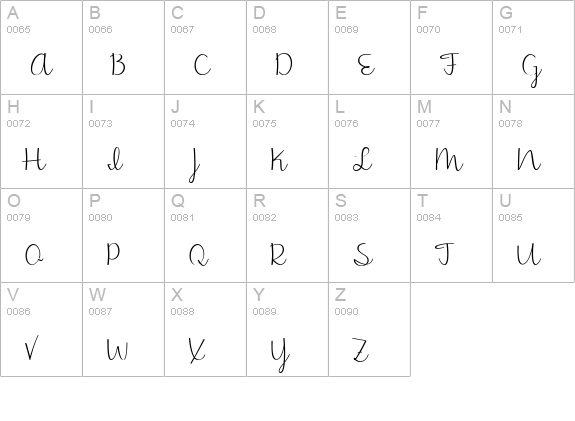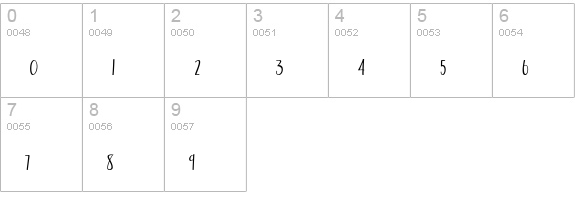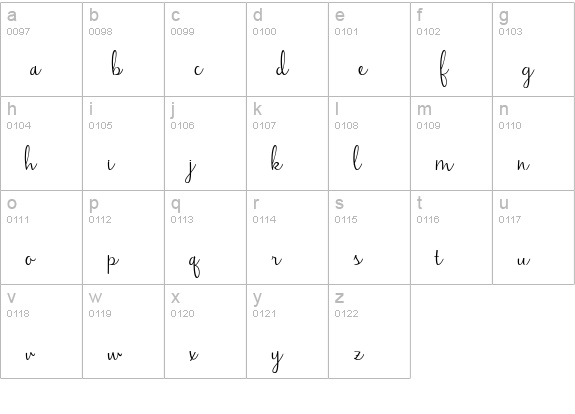
Introducing Jasmine Reminiscentse, a captivating and elegant font that will transport you to a world of nostalgia and timeless beauty. This font exudes a sense of sophistication and grace, with its delicate curves and flowing lines that effortlessly capture the essence of handwritten script. Jasmine Reminiscentse is the perfect choice for any project that requires a touch of elegance and charm. Whether you're designing a wedding invitation, creating a logo for a luxury brand, or adding a touch of class to your website, this font will elevate your design to new heights. One of the best things about Jasmine Reminiscentse is that it is free! Yes, you read that right. This stunning font is freely available to download at FontsMarket.com, where you can access it with just a few clicks. Say goodbye to expensive font licenses and hello to creative freedom. With Jasmine Reminiscentse, you can bring your vision to life without breaking the bank. Its versatility and timeless appeal make it a must-have in every designer's toolkit. So why wait? Head over to FontsMarket.com and download Jasmine Reminiscentse today to add a touch of elegance and sophistication to your next project.